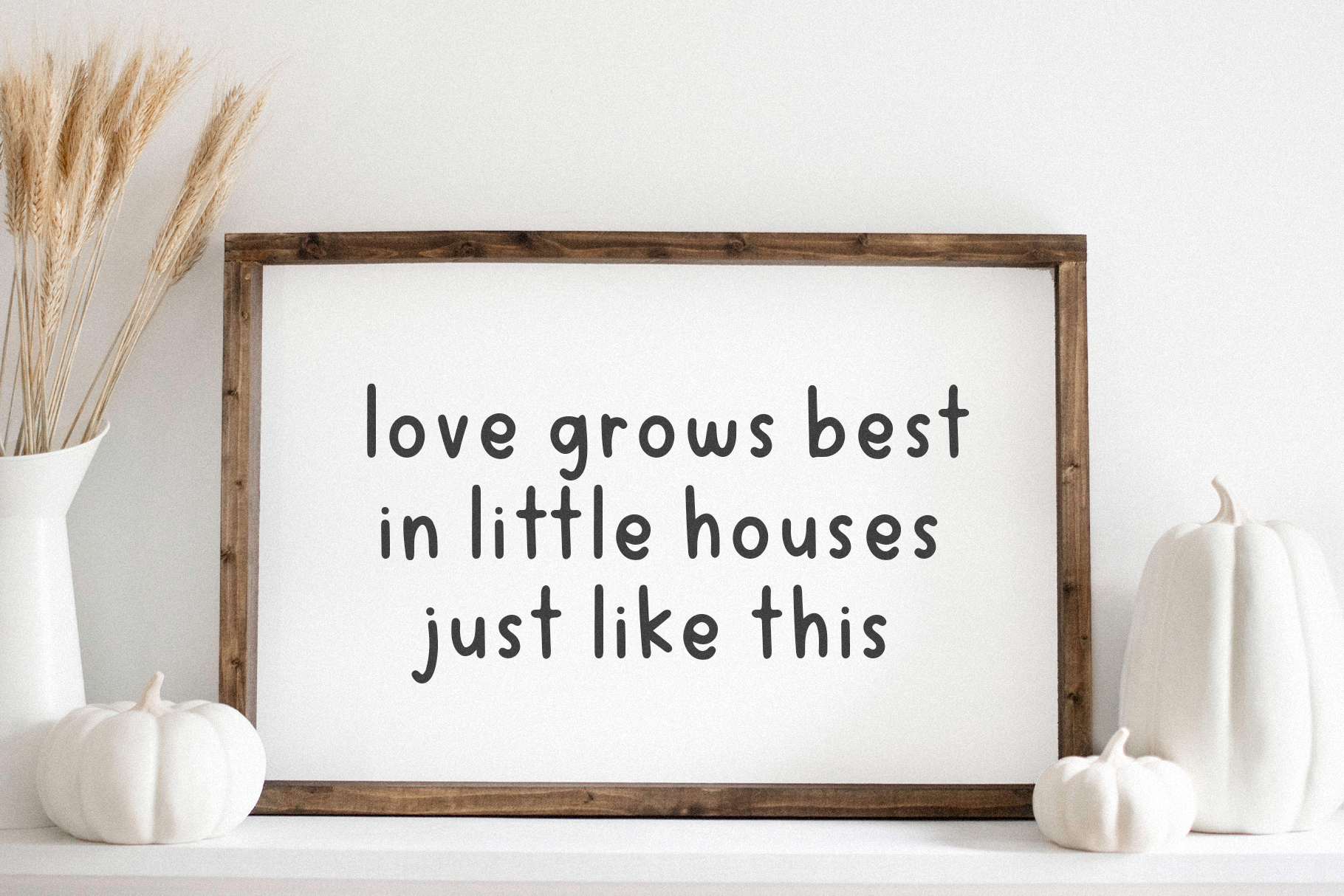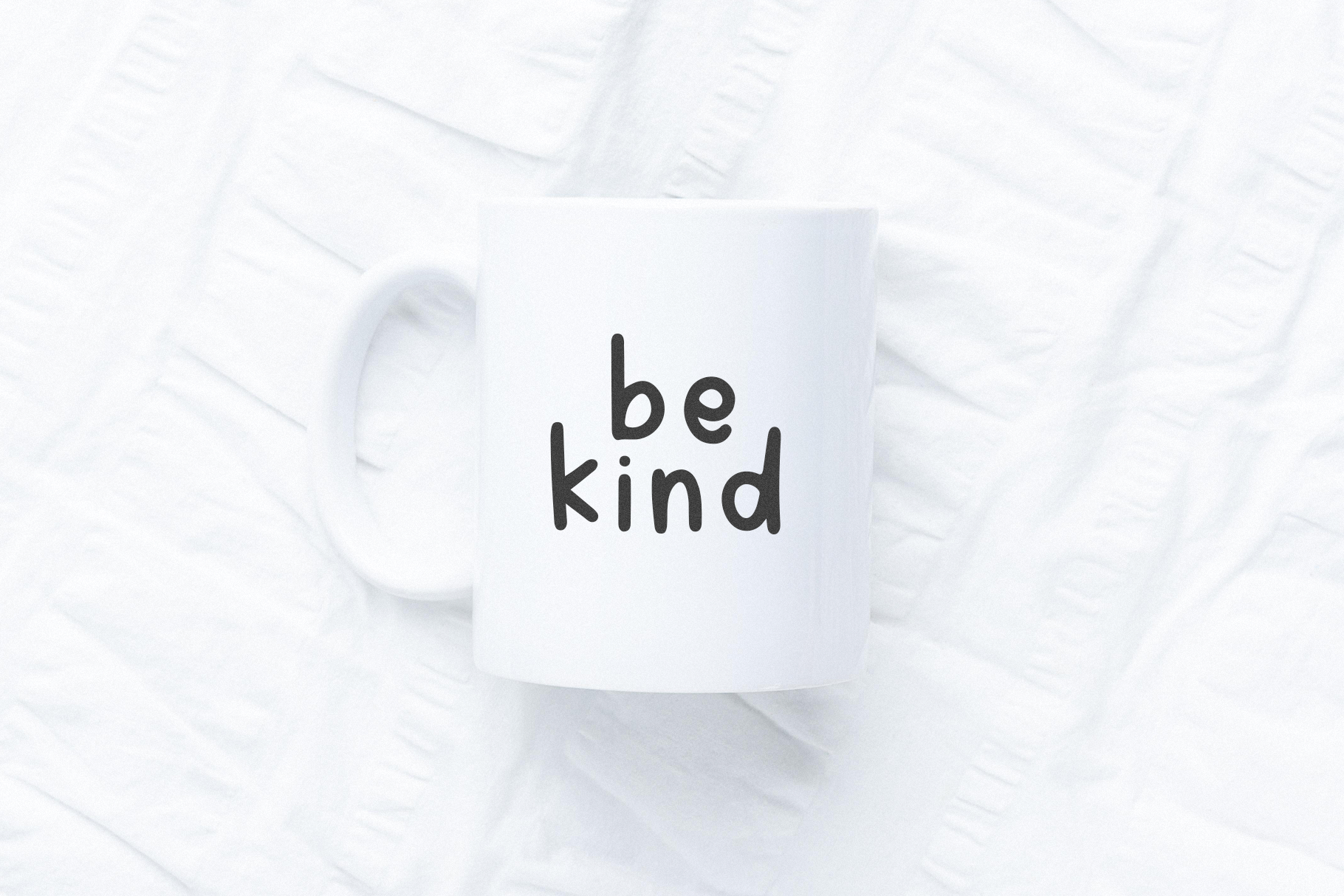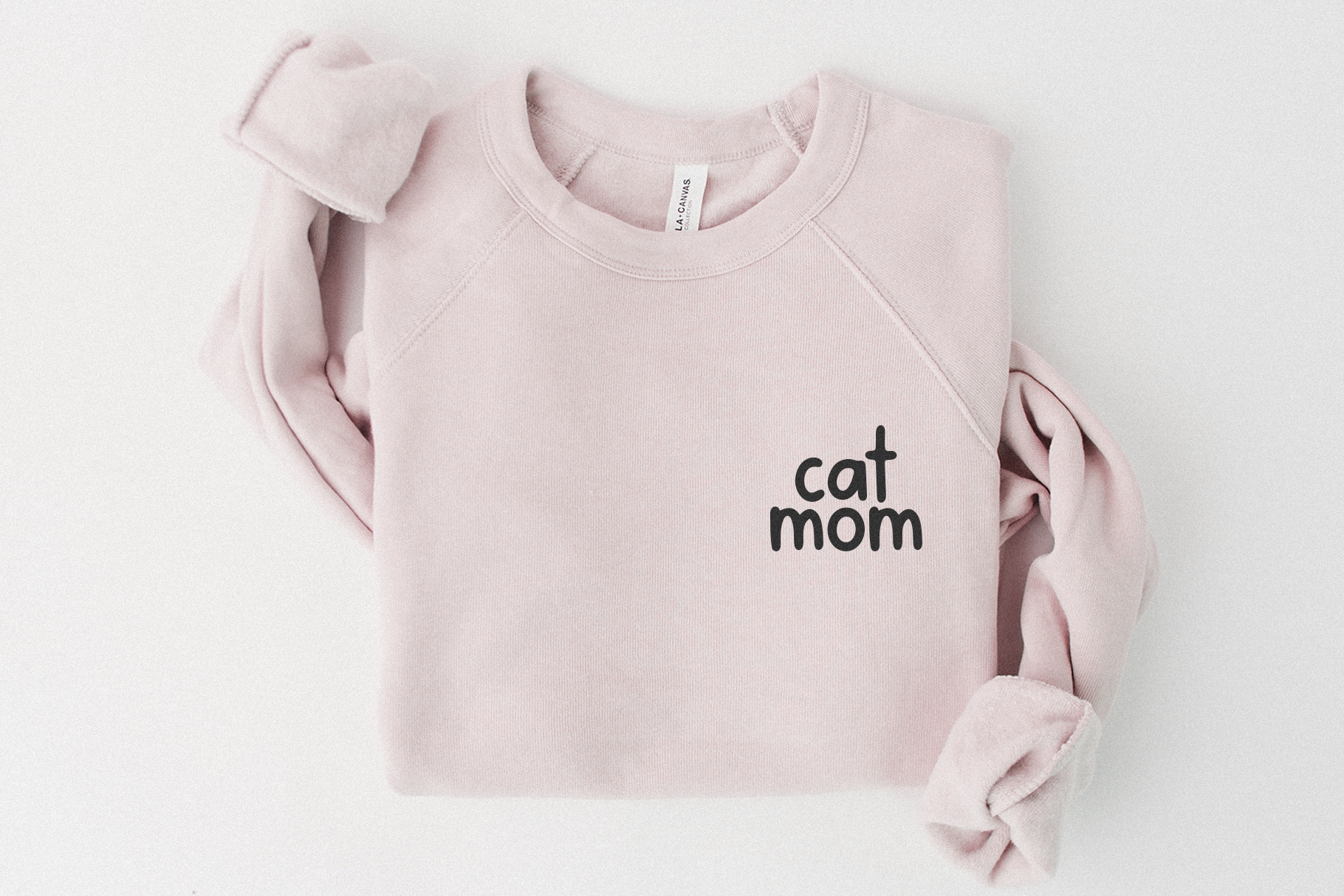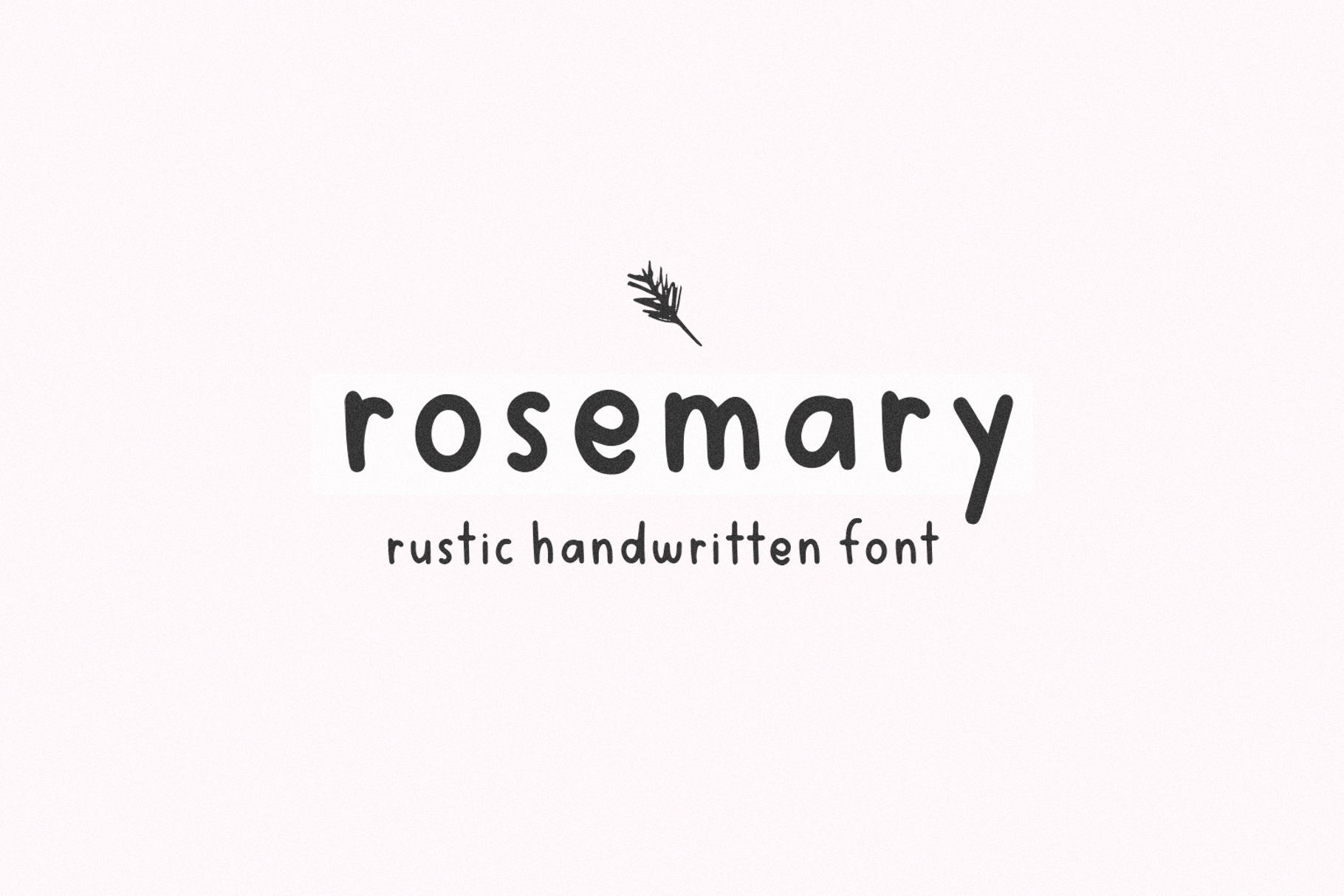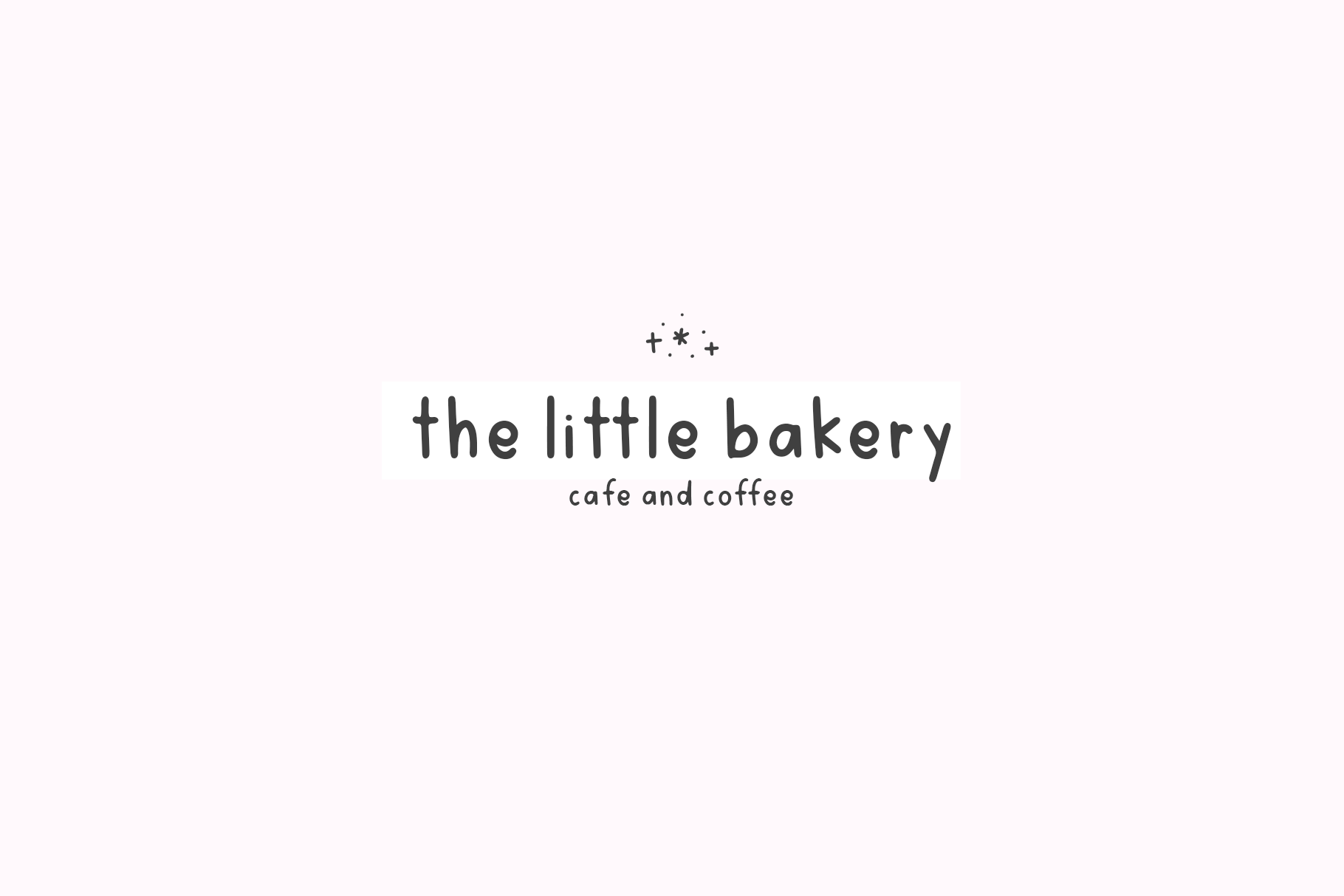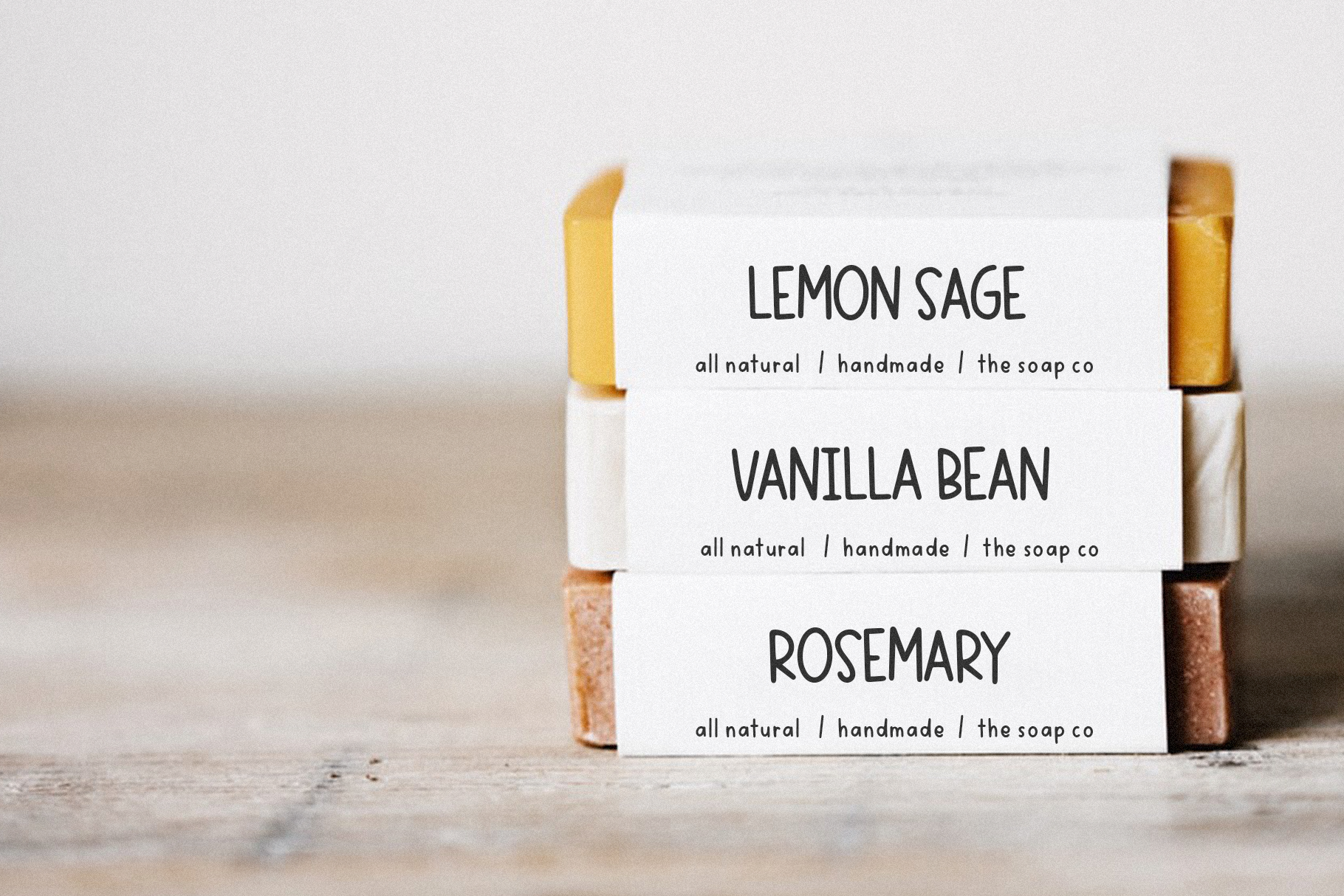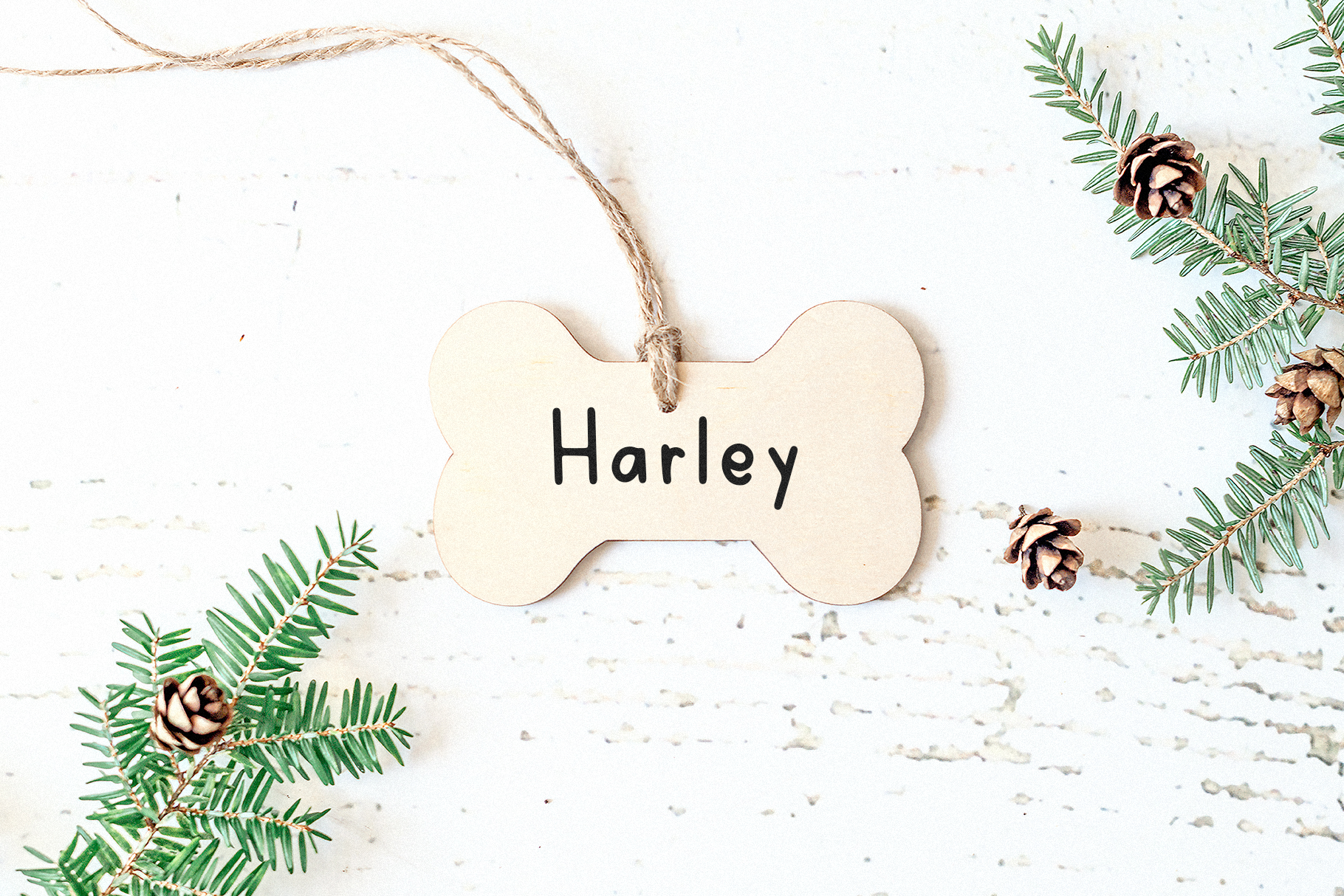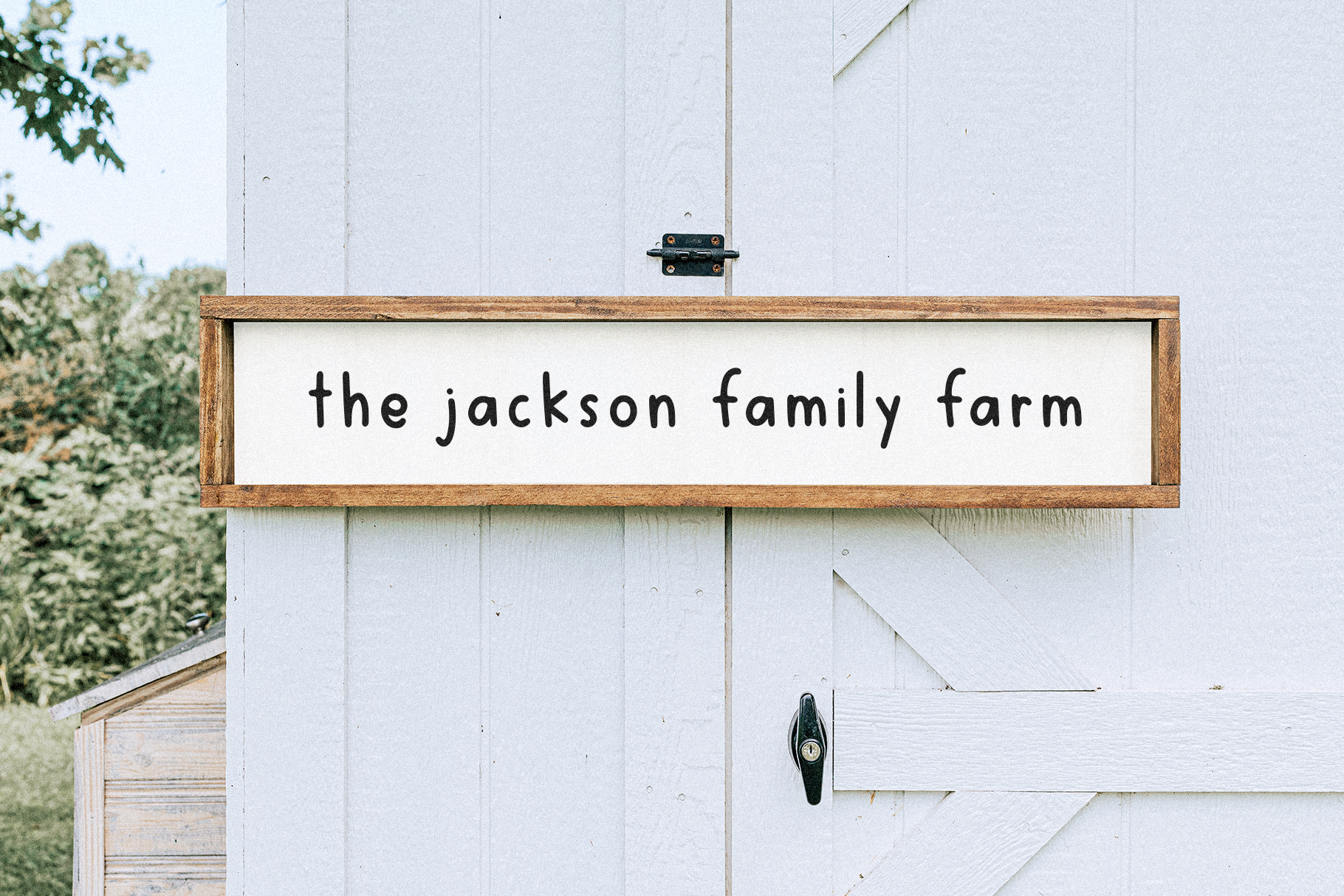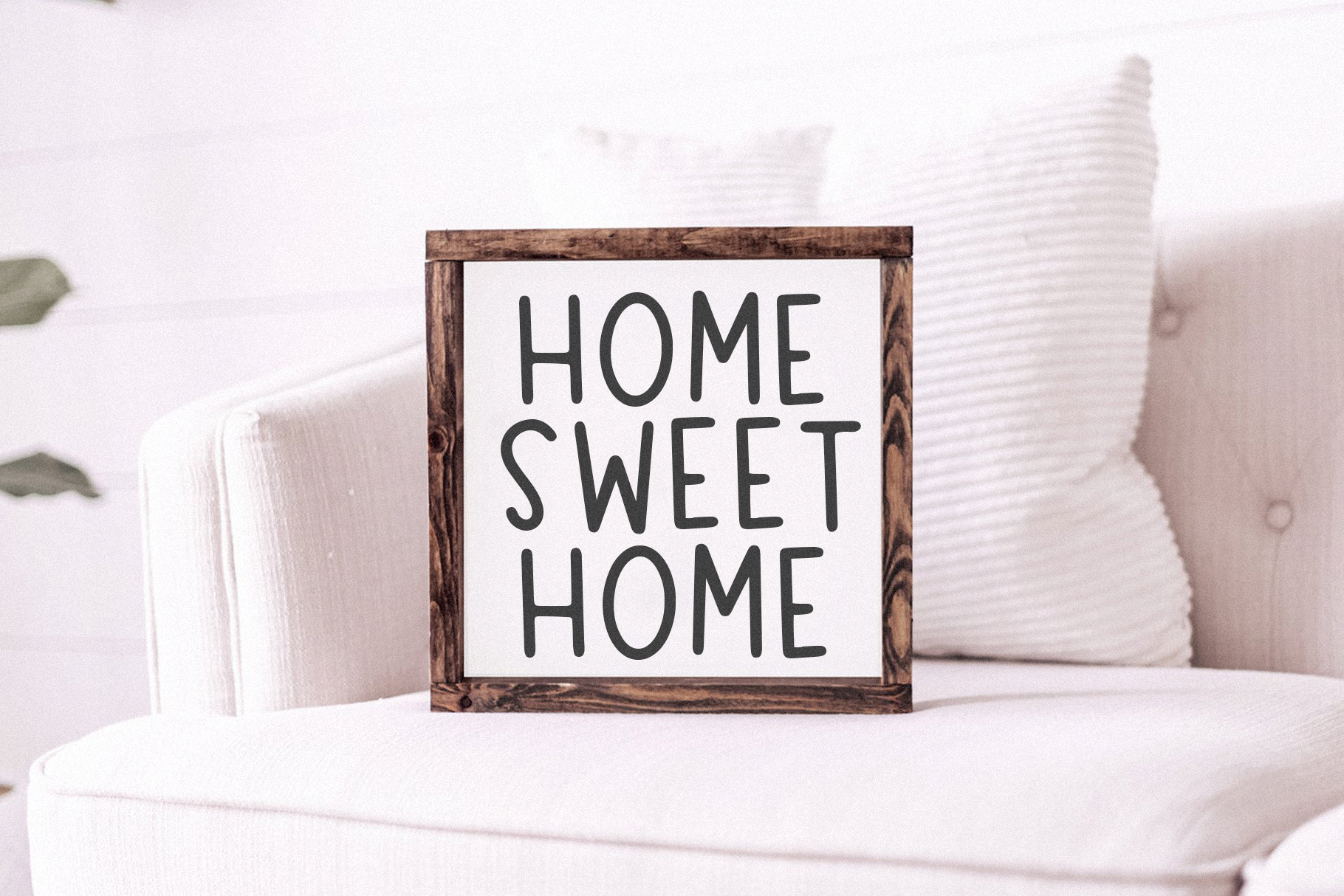
Rosemary is a printed font that will add a handmade touch to all of your farmhouse designs! This font is perfect for your craft projects, farmhouse signs, logos, svg designs, shirts, mugs, stickers, logos and more! - OTF/TTF Thank you! | Rosemary | Handwritten Print Font | KA Designs